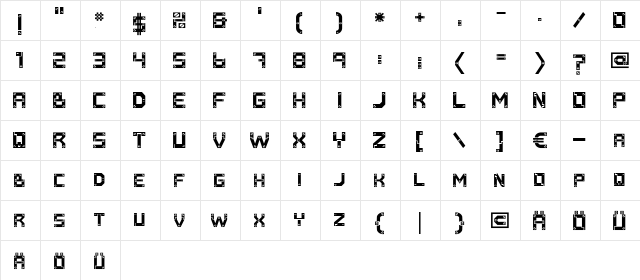
Baumarkt Regular
Design Context for Baumarkt Typeface
Baumarkt is a composed and adaptable typeface that performs quietly and consistently across a wide range of design contexts.